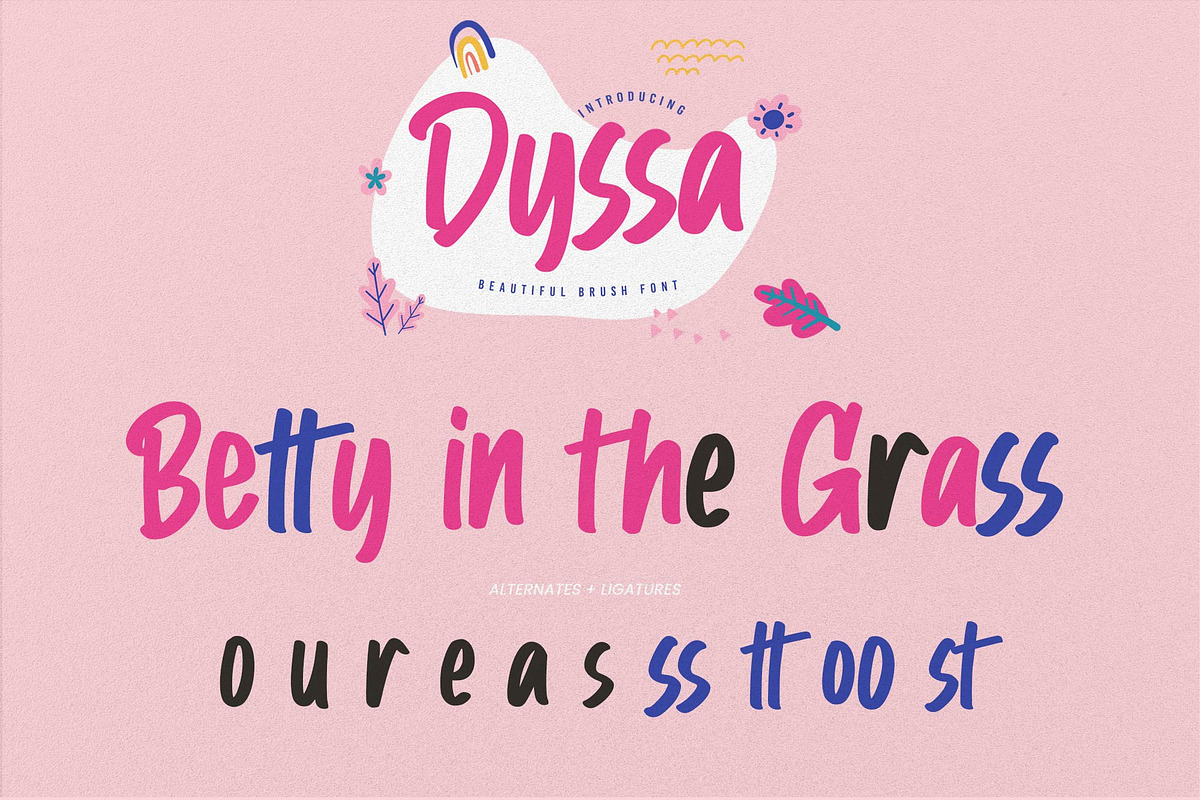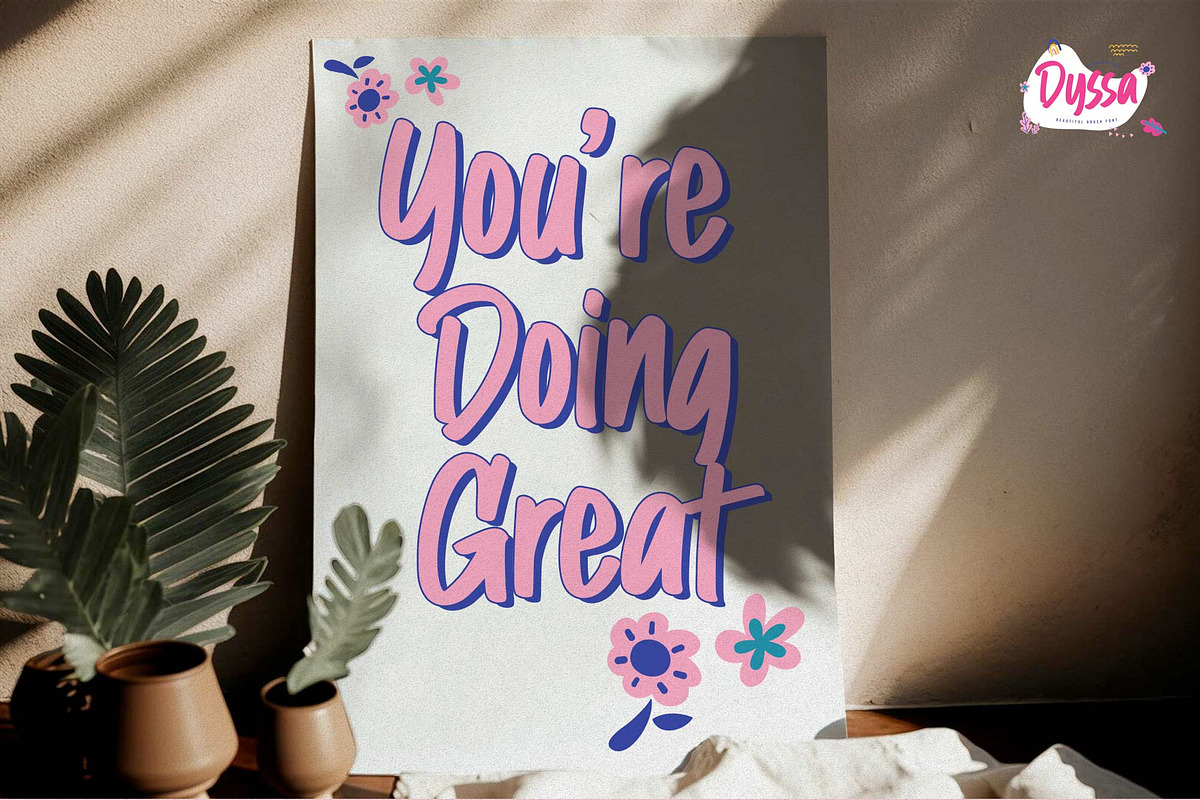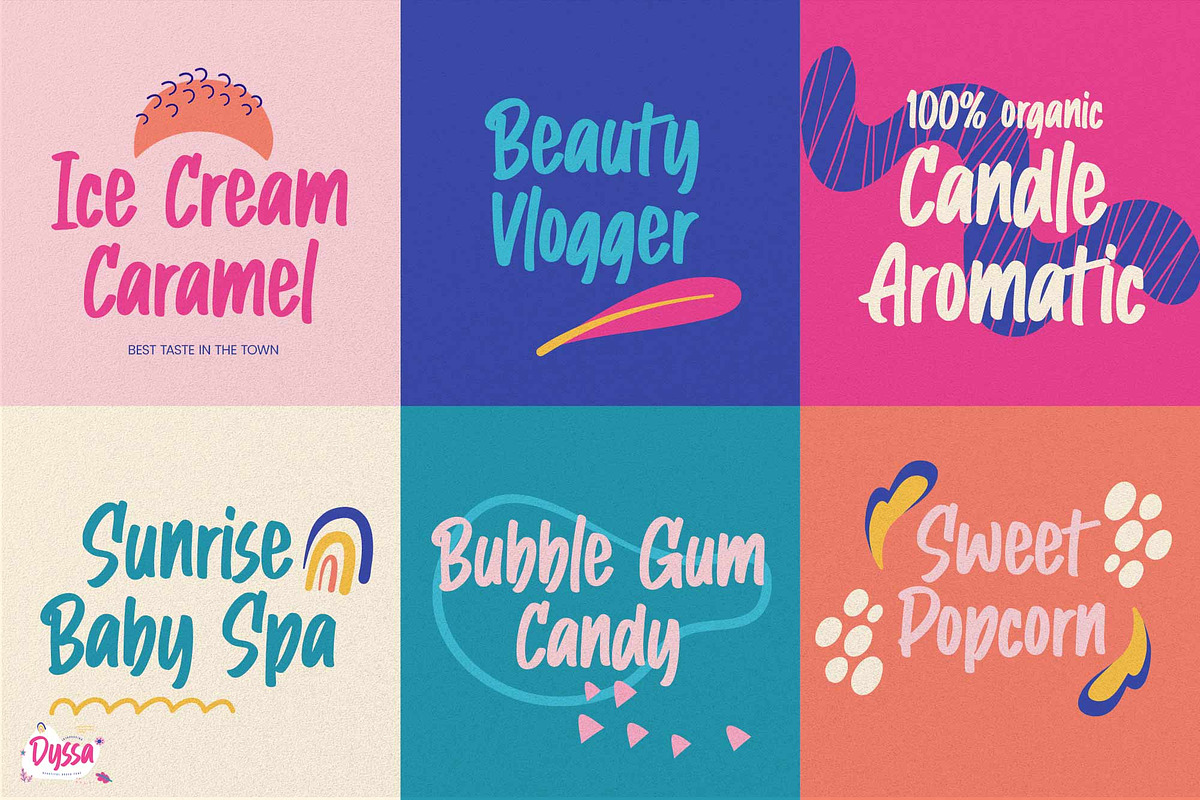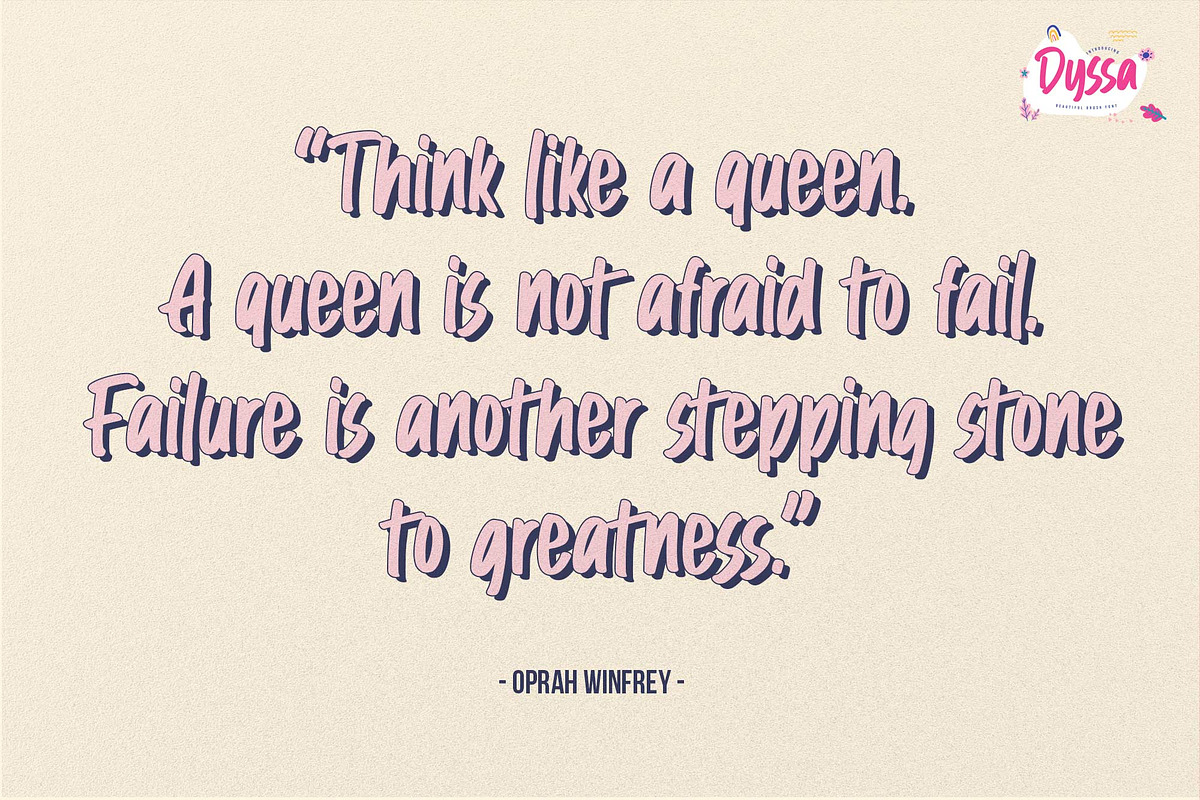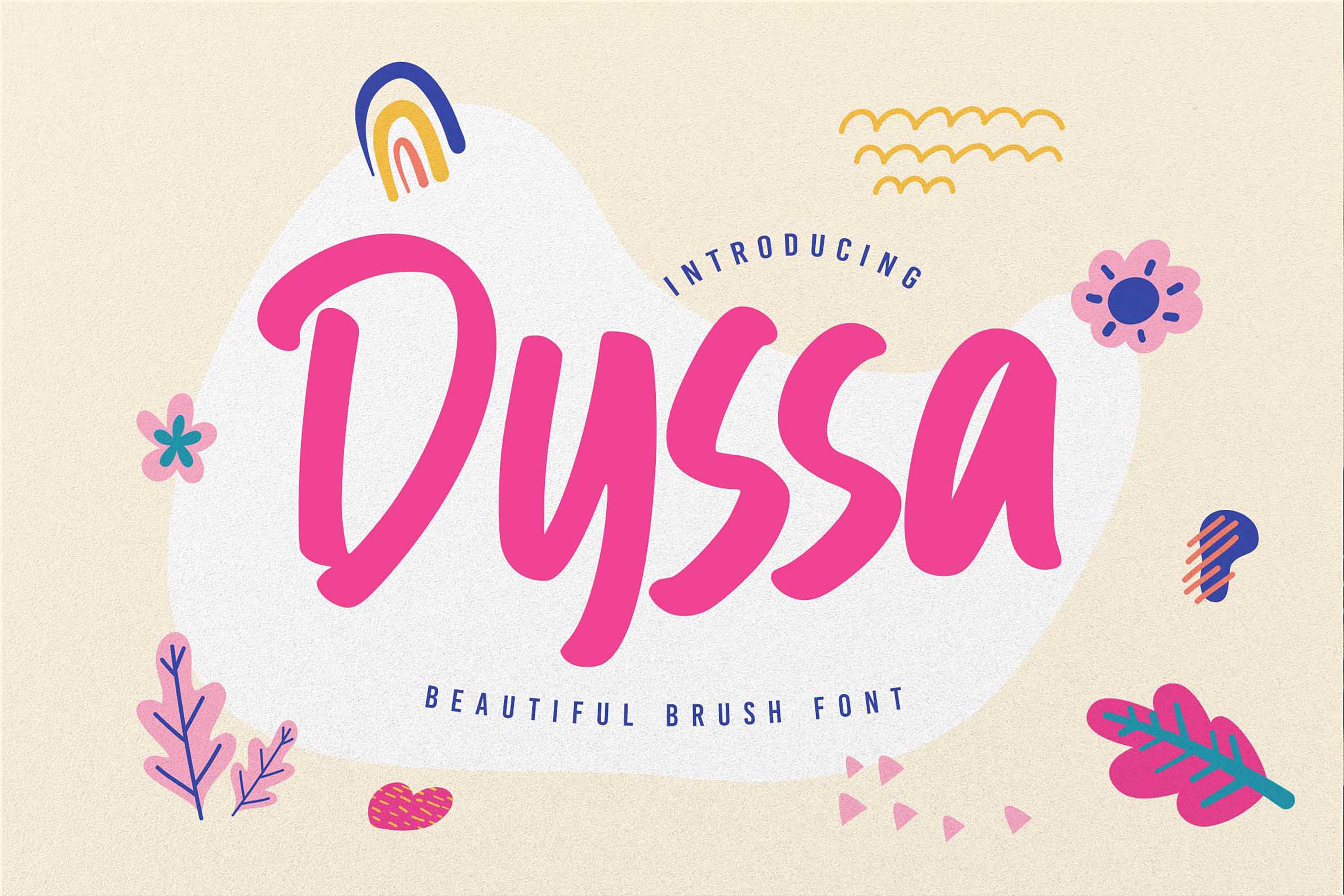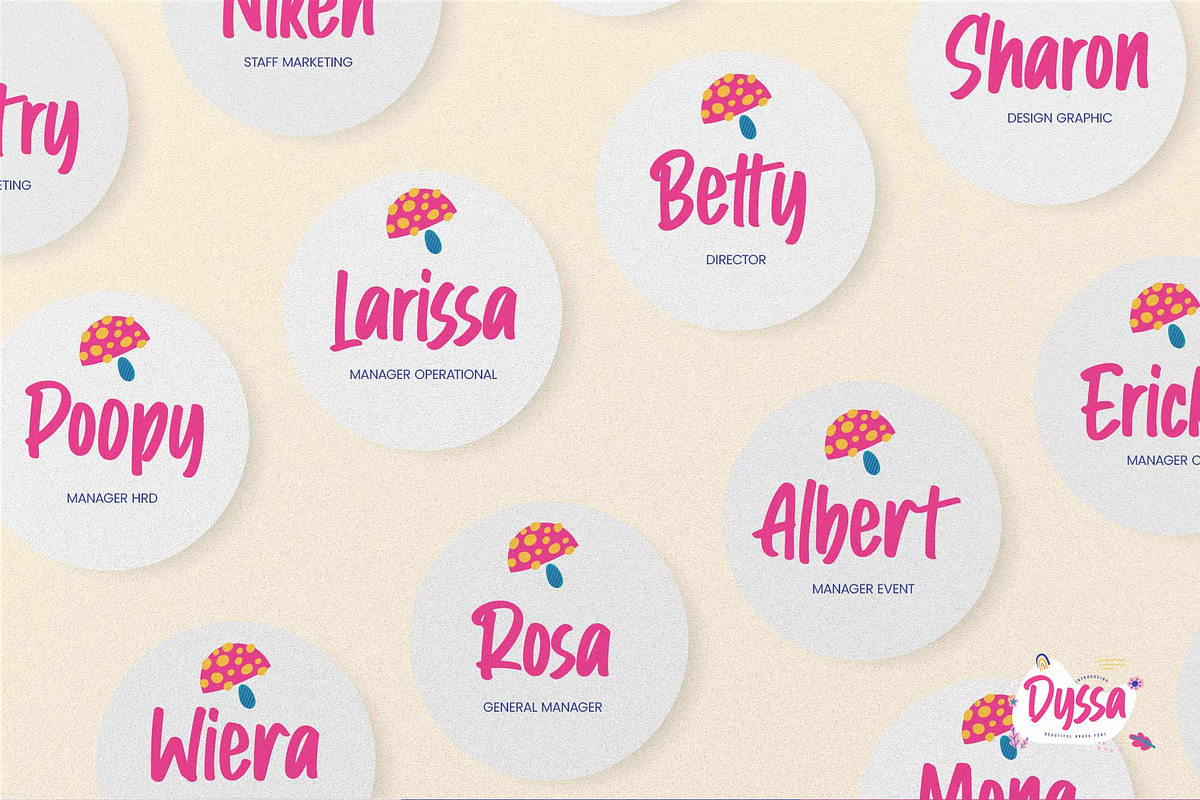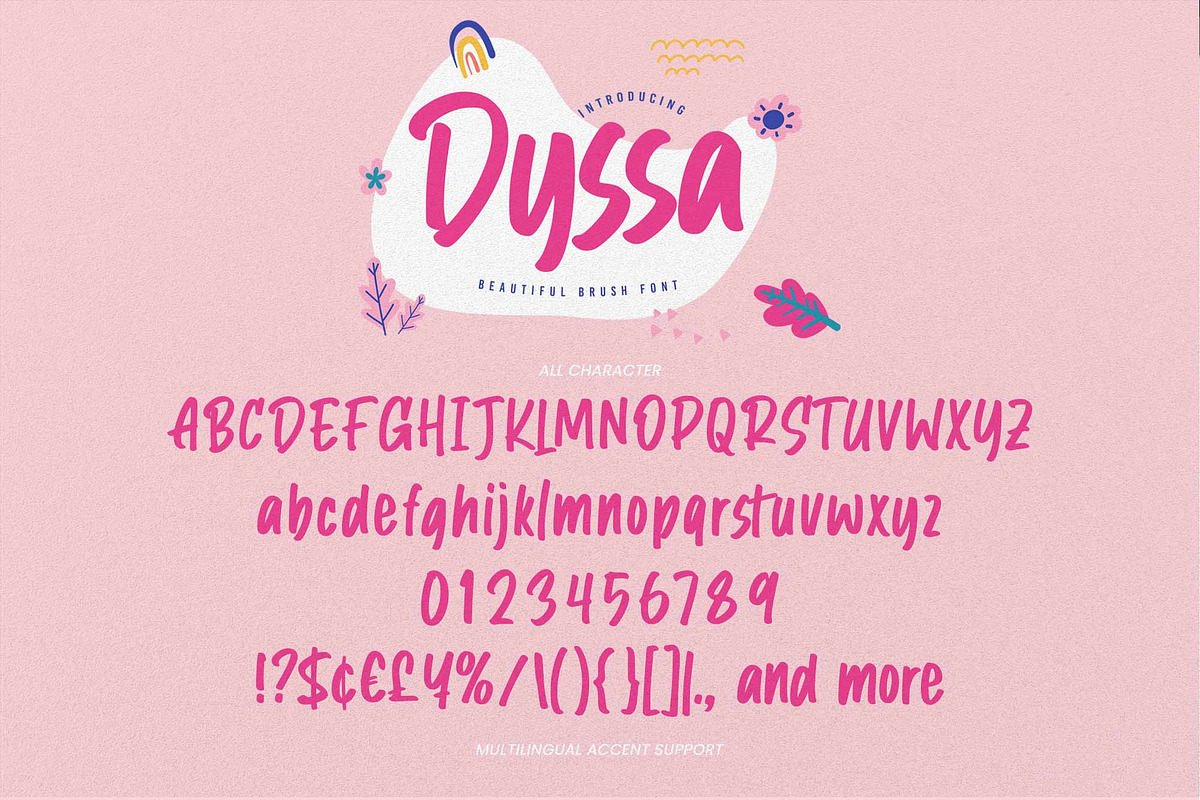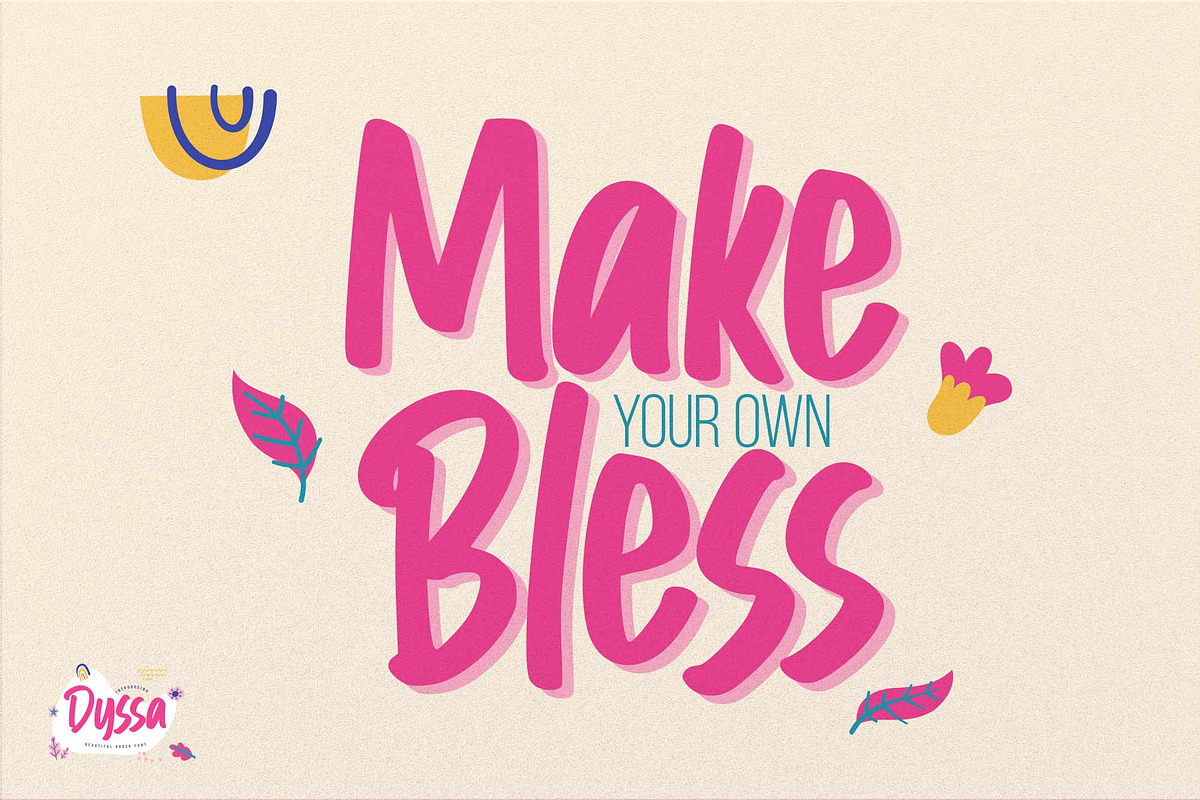
Dyssa – Beautiful Brush Font
Dyssa This is a Beautiful Brush Font, this is a handmade font with more alternates and brush font, this font is perfect for making a strong statement in your designs.
Logos
Posters
Product packaging
Branding
Advertisements
Invitations
Stationery
Wedding designs
Labels
Photography watermarks
Quotes
and more
Add the bold and authentic character of this Font to your next project and capture the essence of the minimalist aesthetic.